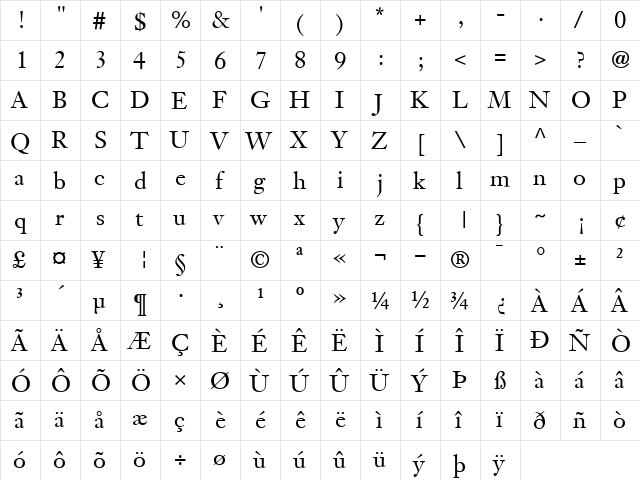
JansonText55Roman Roman
Design Context for JansonText55Roman Typeface
JansonText55Roman is a composed and adaptable typeface that performs quietly and consistently across a wide range of design contexts.
Pro Tip: Use JansonText55Roman in both headline and body roles to test its range before committing to a single application.